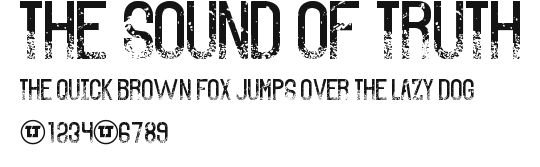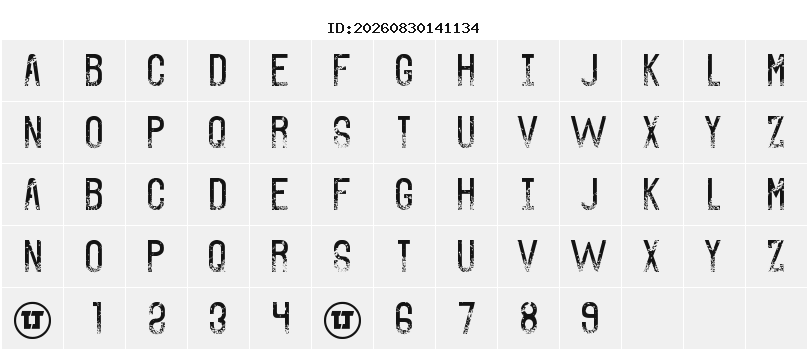
The Sound of Truth Preview
• Font Name: The Sound of Truth
• Font Style: Grunge
• Full Font Name: The Sound of Truth Grunge
• Designer: Luis Jaramillo
• Manufacturer: LJ-Design Studios
About The Sound of Truth.ttf
The Sound of Truth.ttf is a modern, elegant sans-serif font designed for ultimate readability and visual harmony. Perfect for branding, headlines, web design, and print materials.